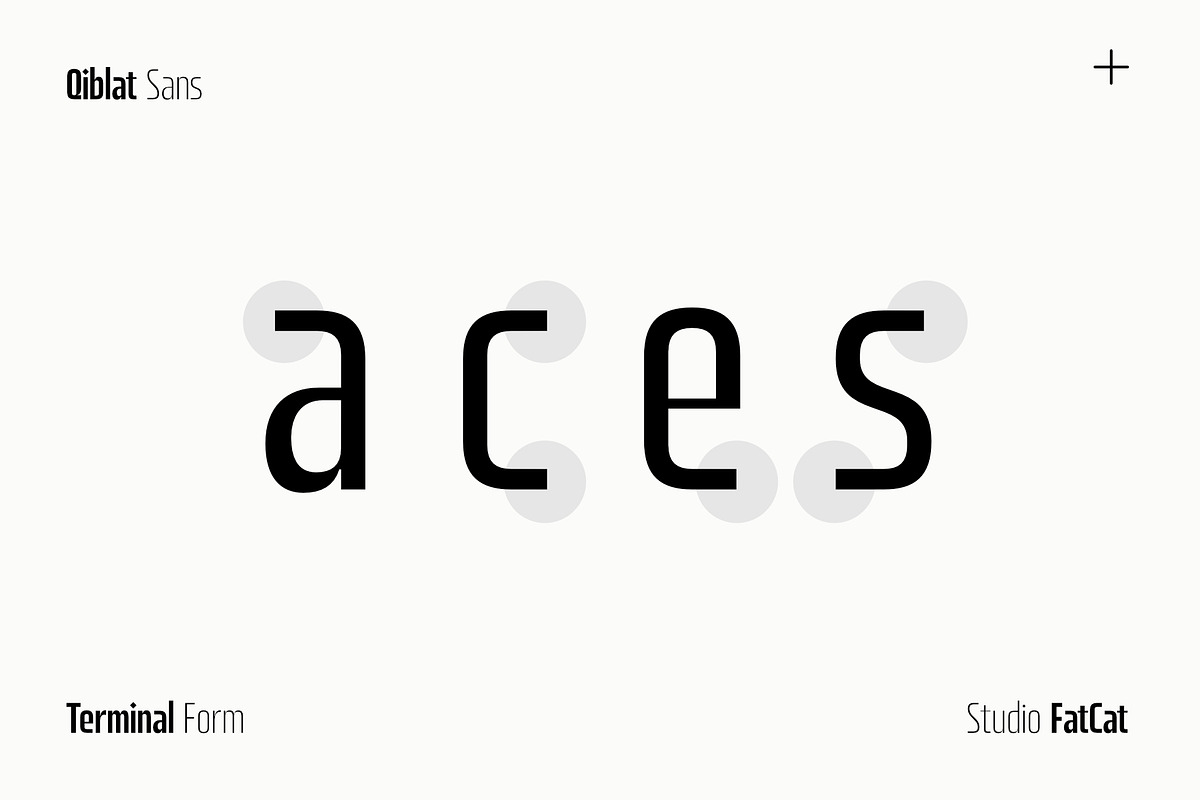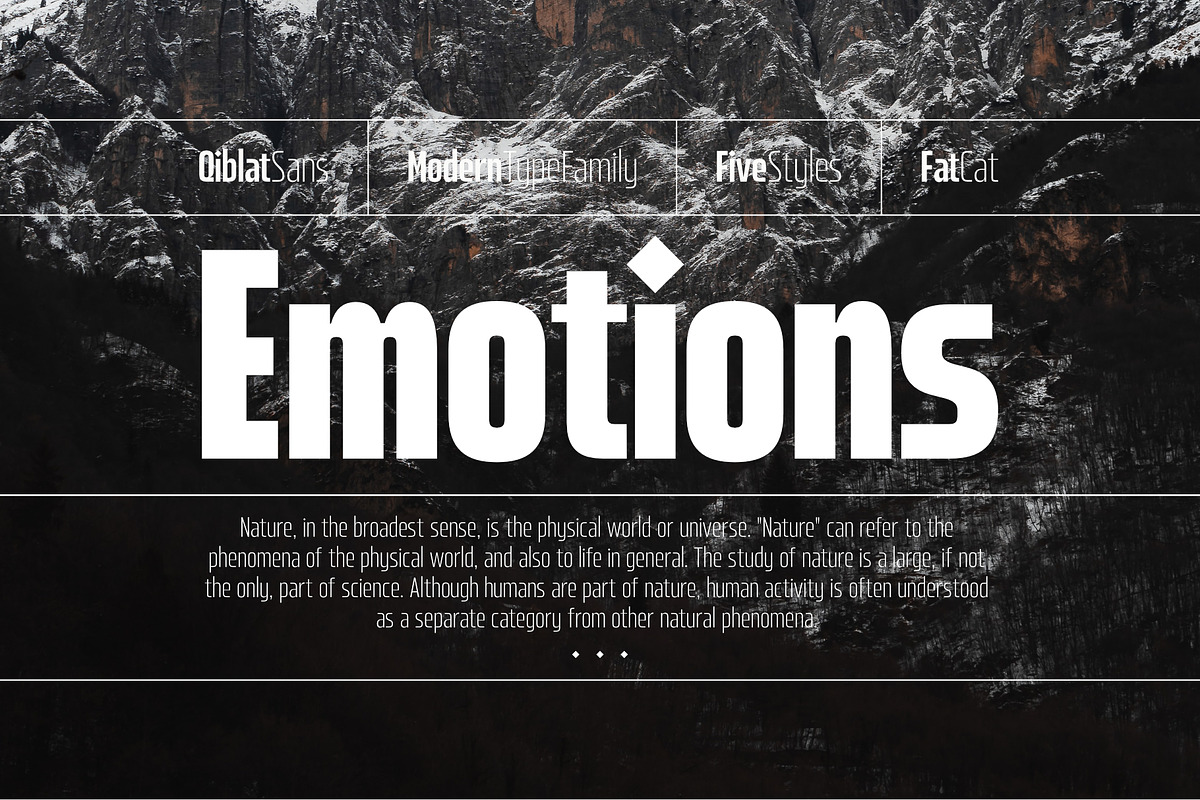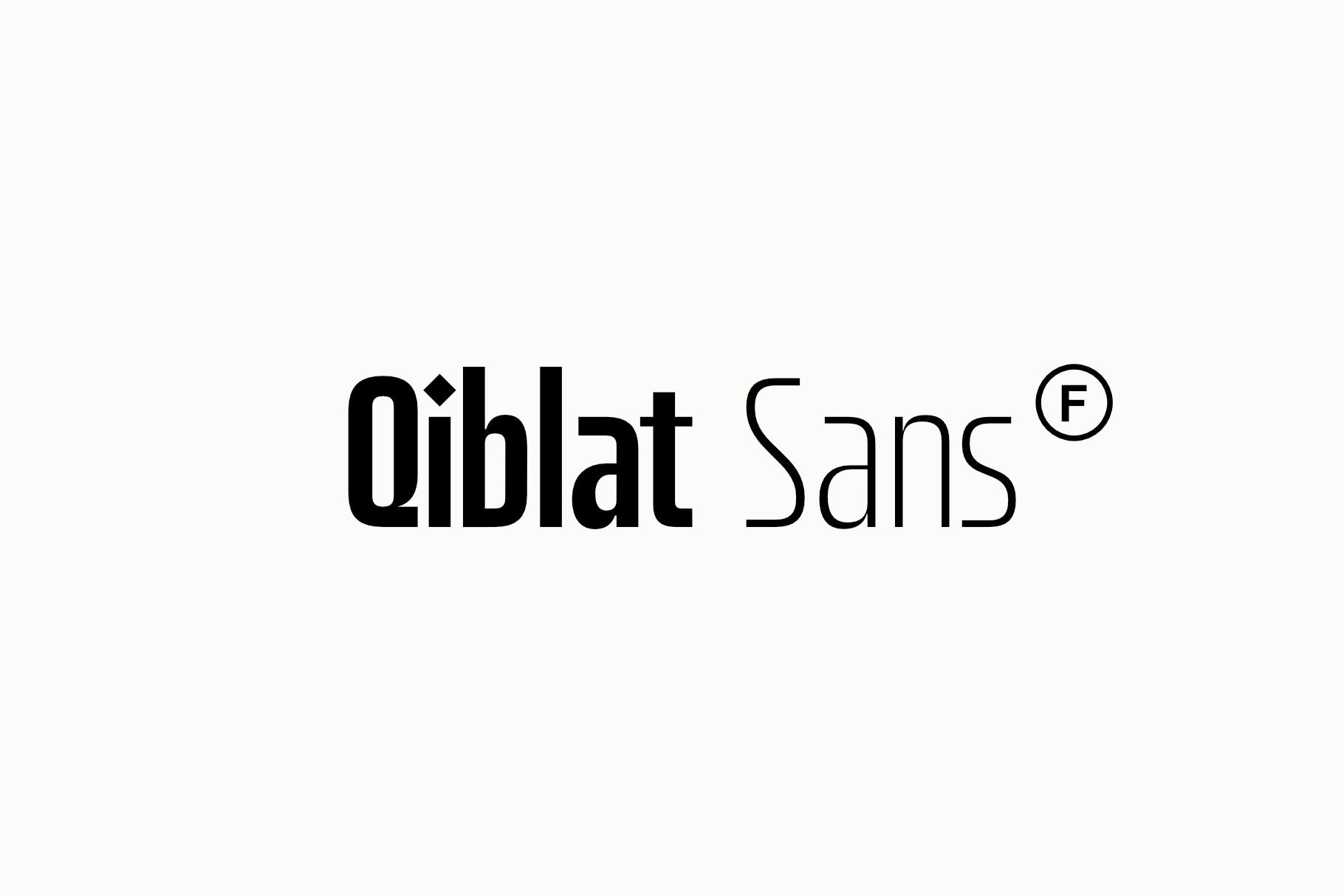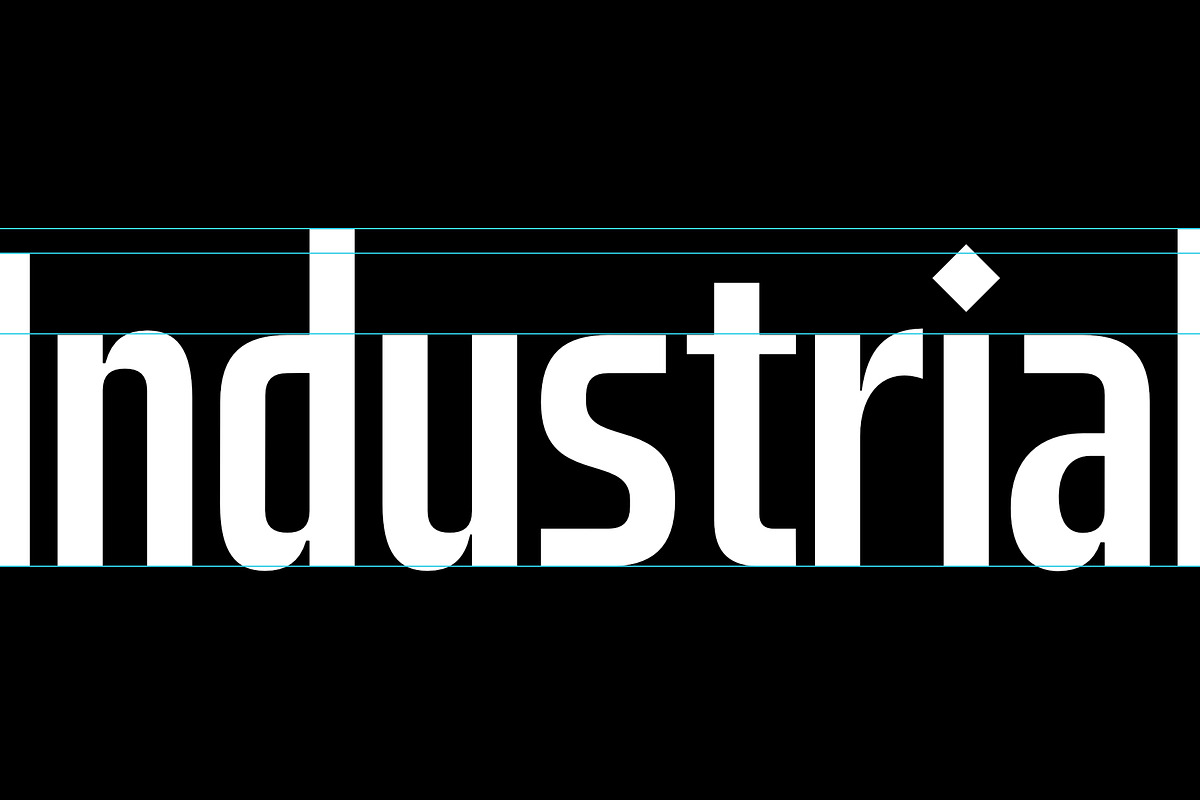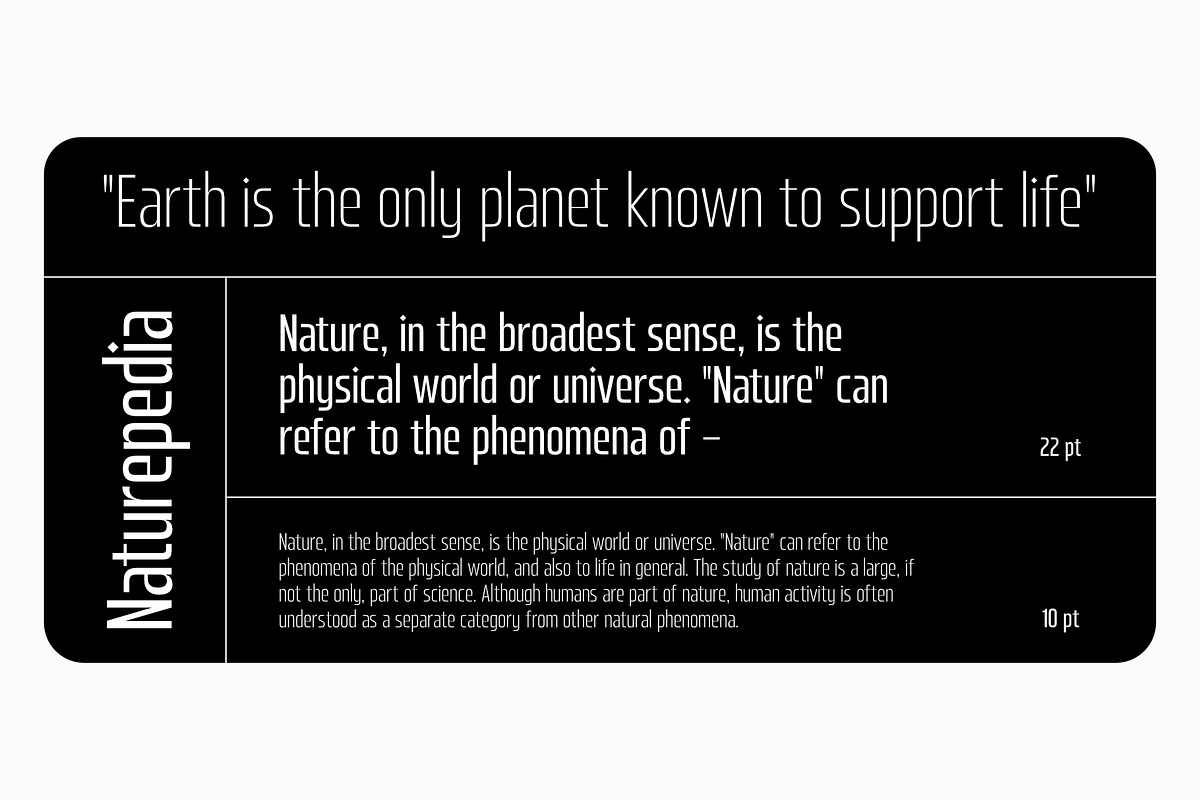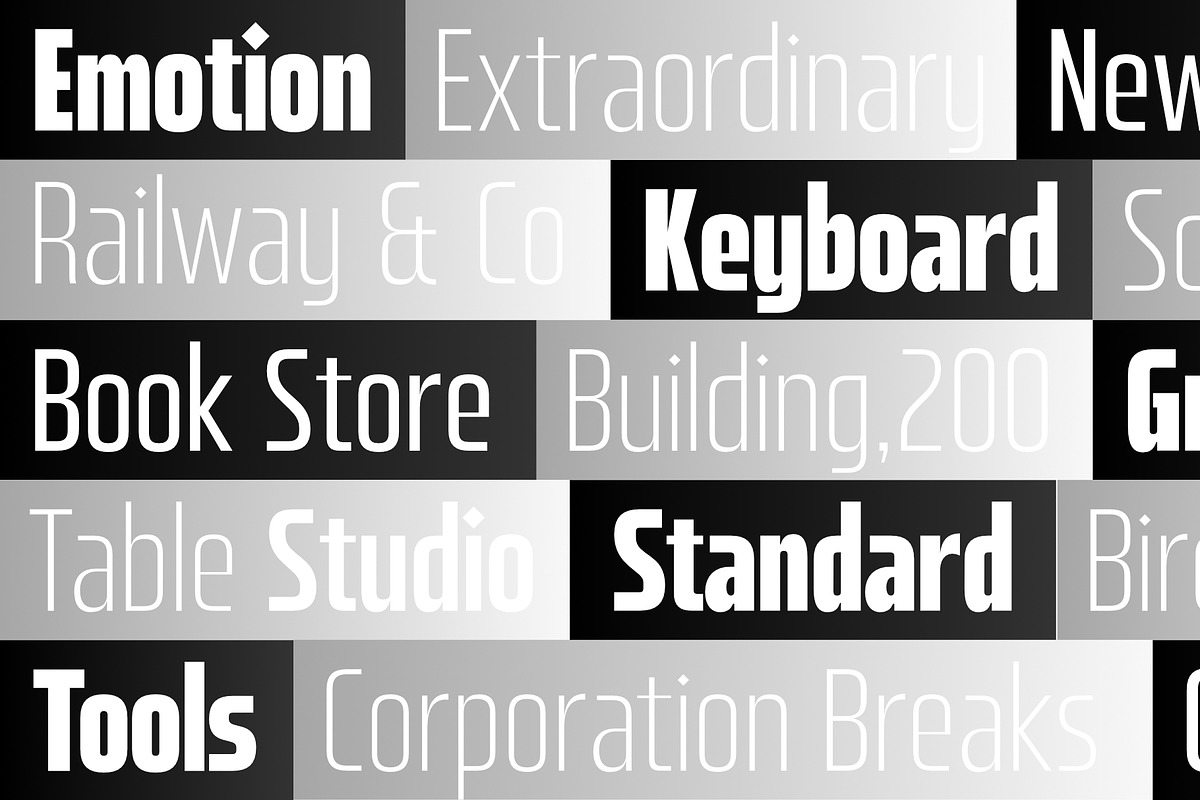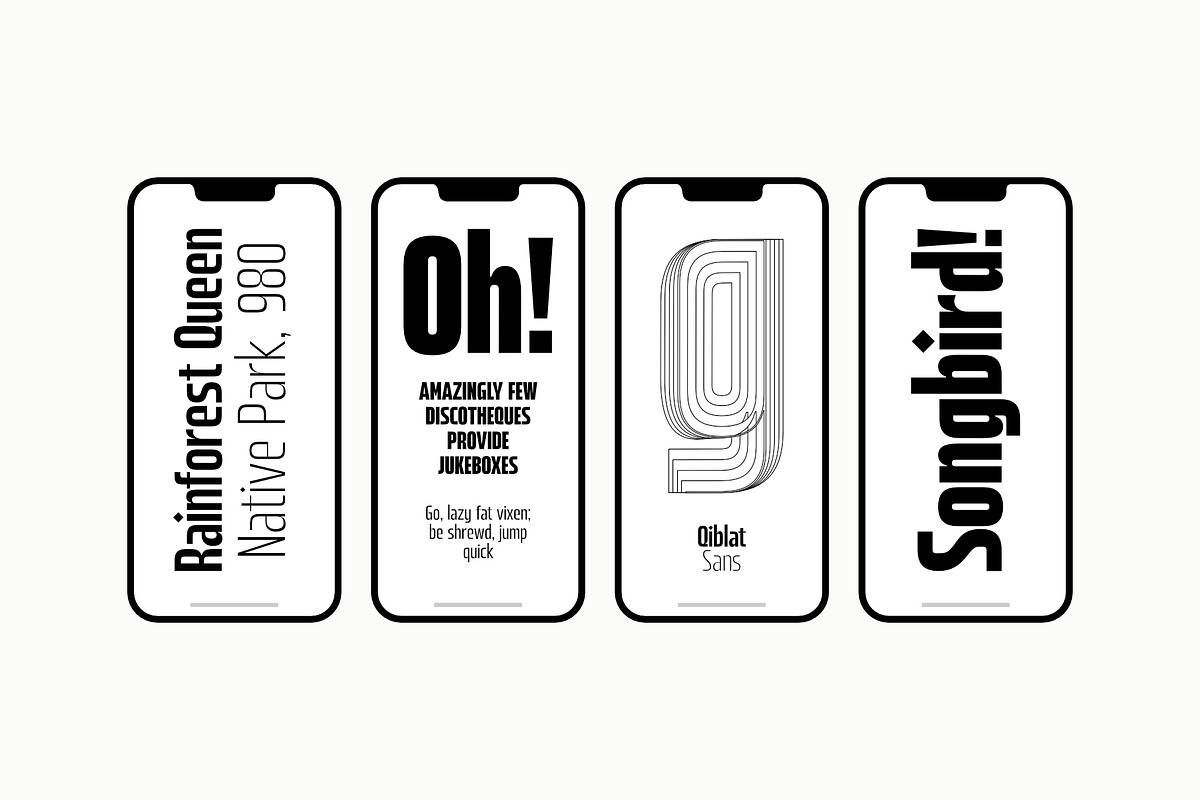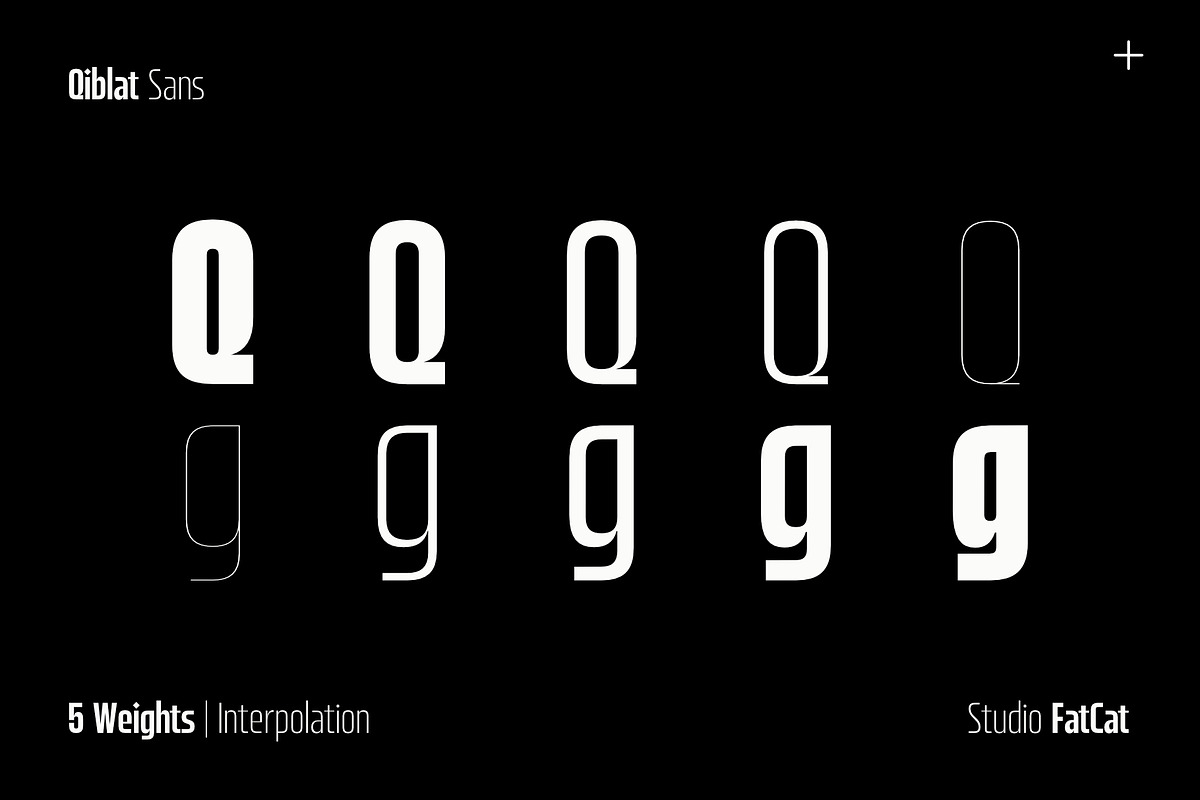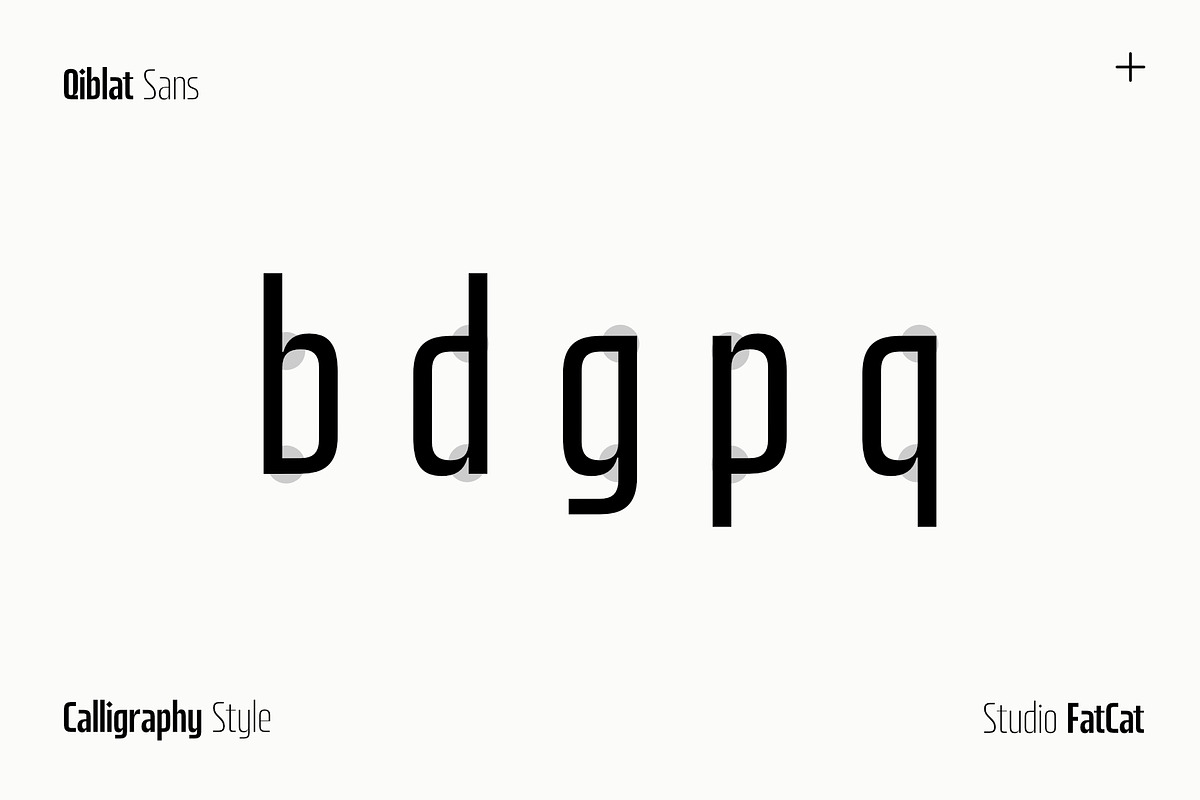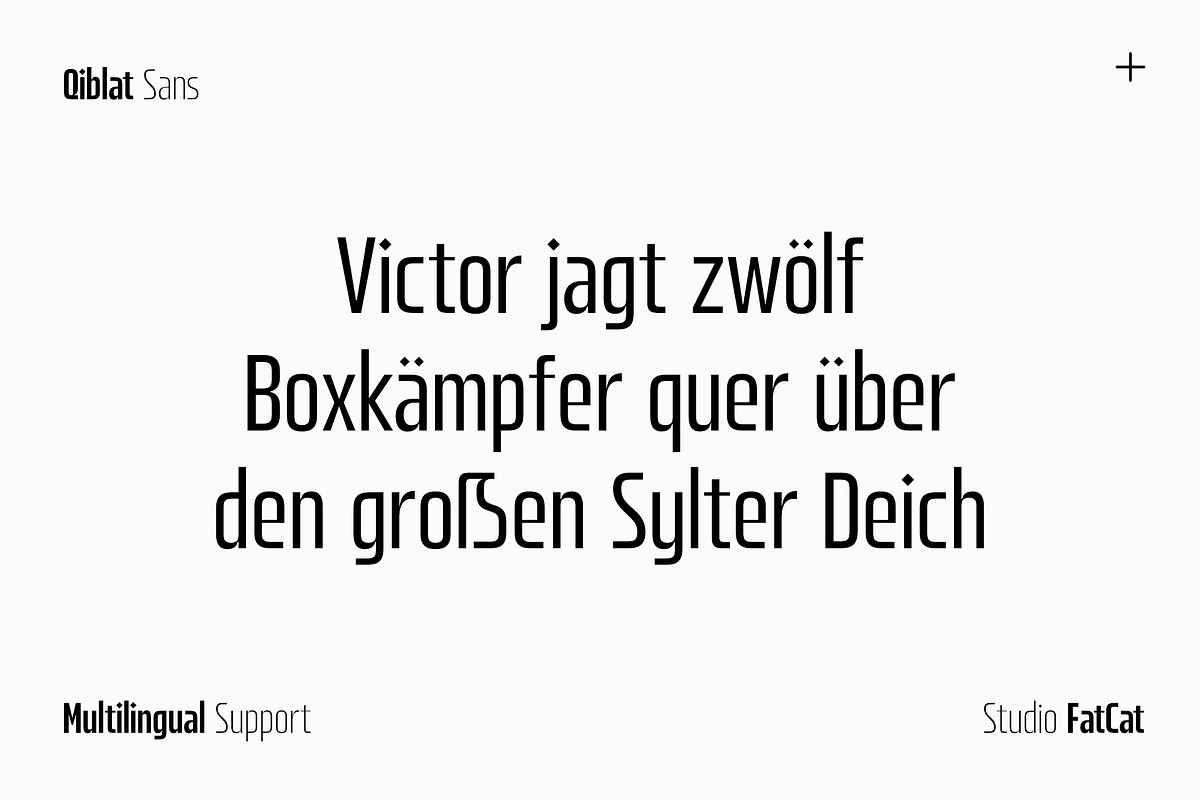
Qiblat Sans Modern Vintage Logo Font
Qiblat Sans is a modern vintage sans serif font family crafted with timeless elegance and bold personality. Perfect for high-end branding, stylish logos, and sophisticated design, it blends clean geometric shapes with a subtle retro soul. Whether you're working on a luxury fashion brand, a romantic wedding invite, or a modern creative project, Qiblat Sans delivers both charm and confidence.
With its minimal lines, elegant proportions, and refined details, Qiblat Sans is designed to elevate every part of your branding—from headline fonts to logo marks and beyond. It’s strong enough for a bold logo, yet graceful enough to carry luxury with ease.
If you're looking for a font that’s equally at home in fashion, branding, or clean, high-end design, Qiblat Sans is your new go-to. It’s everything modern elegance should be—versatile, luxurious, and effortlessly stylish. File: